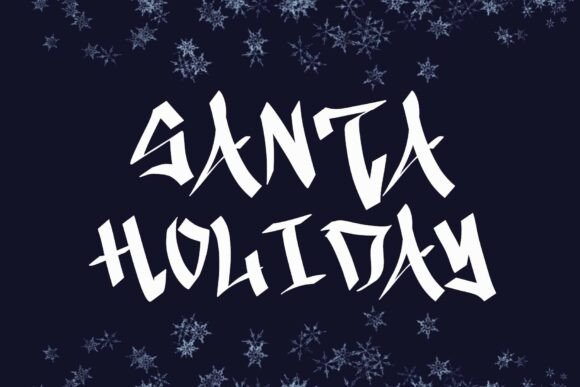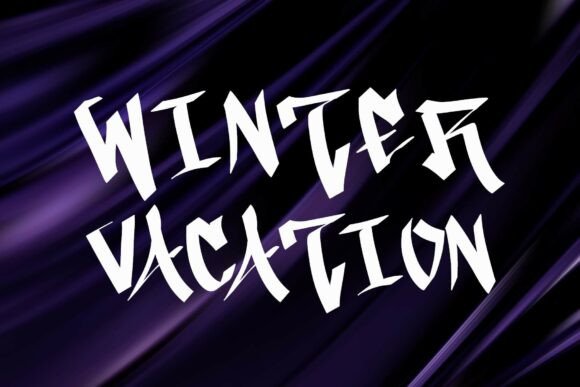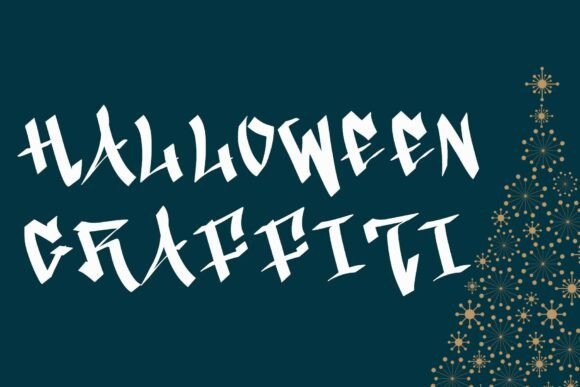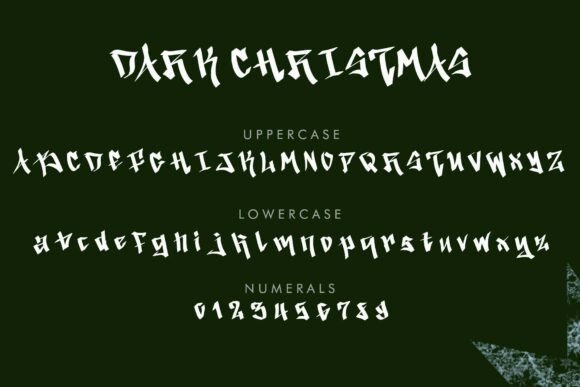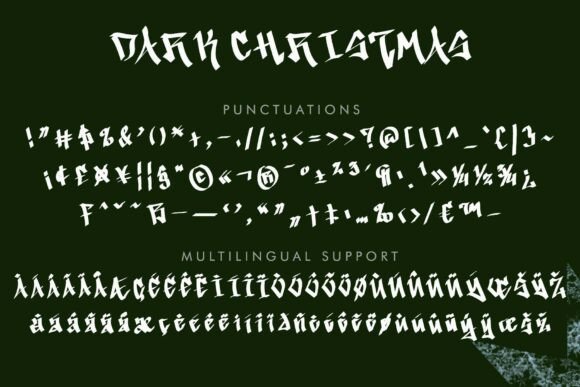
Unleash the Spirit of the Season with Dark Christmas Font
Are you looking for a unique and eye-catching font to elevate your holiday designs? Look no further than the Dark Christmas Font, a one-of-a-kind Christmas graffiti font that’s perfect for adding a touch of edginess to your seasonal creations. In this article, we’ll dive into the features and benefits of this versatile font, and explore the many ways you can use it to make your designs shine.
What is Dark Christmas Font?
Dark Christmas Font is a distinctive Christmas graffiti font that boasts a bold, edgy aesthetic. Its unique design makes it stand out from more traditional Christmas fonts, adding a touch of attitude to your holiday designs. Whether you’re creating materials for Christmas, Halloween, winter, fall, autumn, spring, or summer, this font is sure to make a statement.
Key Features of Dark Christmas Font
So, what makes Dark Christmas Font so special? Here are just a few of its key features:
- Uppercase and Lowercase Letters: The font includes both uppercase and lowercase letters, giving you flexibility and versatility in your designs.
- Numbers and Punctuation: In addition to letters, the font also includes numbers and punctuation marks, making it a comprehensive solution for all your design needs.
- Multilingual Support: With support for multiple languages, Dark Christmas Font is perfect for designers working on international projects or targeting diverse audiences.
One of the best things about Dark Christmas Font is its incredible versatility. Here are just a few ideas to get you started:
- Christmas and Holiday Designs: Use Dark Christmas Font to create eye-catching Christmas cards, posters, and banners that will stand out from the crowd.
- Halloween and Spooky Season: The font’s edgy aesthetic also makes it perfect for Halloween designs, from spooky posters to creepy invitations.
- Winter, Fall, and Autumn: Add a touch of seasonal style to your winter, fall, and autumn designs with Dark Christmas Font.
- Spring and Summer: And don’t forget about spring and summer – this font can add a fun and playful touch to your designs for any time of year.
- Banners and Posters: Use Dark Christmas Font to create bold, attention-grabbing banners and posters for any occasion.
- Branding and Logos: The font’s unique style makes it perfect for branding and logo design, helping your business stand out from the competition.
- Stickers and Tattoos: Dark Christmas Font is also great for designing stickers and temporary tattoos – add a fun and edgy touch to your creations.
- Business Branding: Use the font to create a cohesive brand identity that reflects your business’s personality and style.
- Easter and Teacher’s Day: And don’t forget about Easter and Teacher’s Day – Dark Christmas Font can add a fun and playful touch to your designs for these occasions.
- Wall Paintings and Murals: The font’s bold, graffiti-inspired style makes it perfect for large-scale wall paintings and murals.
Why Choose Dark Christmas Font?
So, why should you choose Dark Christmas Font for your holiday designs? Here are just a few reasons:
- Unique Style: Dark Christmas Font boasts a one-of-a-kind style that’s sure to make your designs stand out.
- Versatility: With support for uppercase and lowercase letters, numbers, punctuation, and multiple languages, this font is incredibly versatile.
- Ease of Use: Dark Christmas Font is easy to use and integrate into your designs, making it perfect for designers of all skill levels.
Dark Christmas Font is a game-changing Christmas graffiti font that’s perfect for designers looking to add a touch of edginess to their holiday creations. With its unique style, versatility, and ease of use, this font is sure to become a go-to in your design arsenal. Whether you’re creating materials for Christmas, Halloween, or any other occasion, Dark Christmas Font is the perfect choice. So why wait? Download Dark Christmas Font today and start creating designs that will leave a lasting impression!